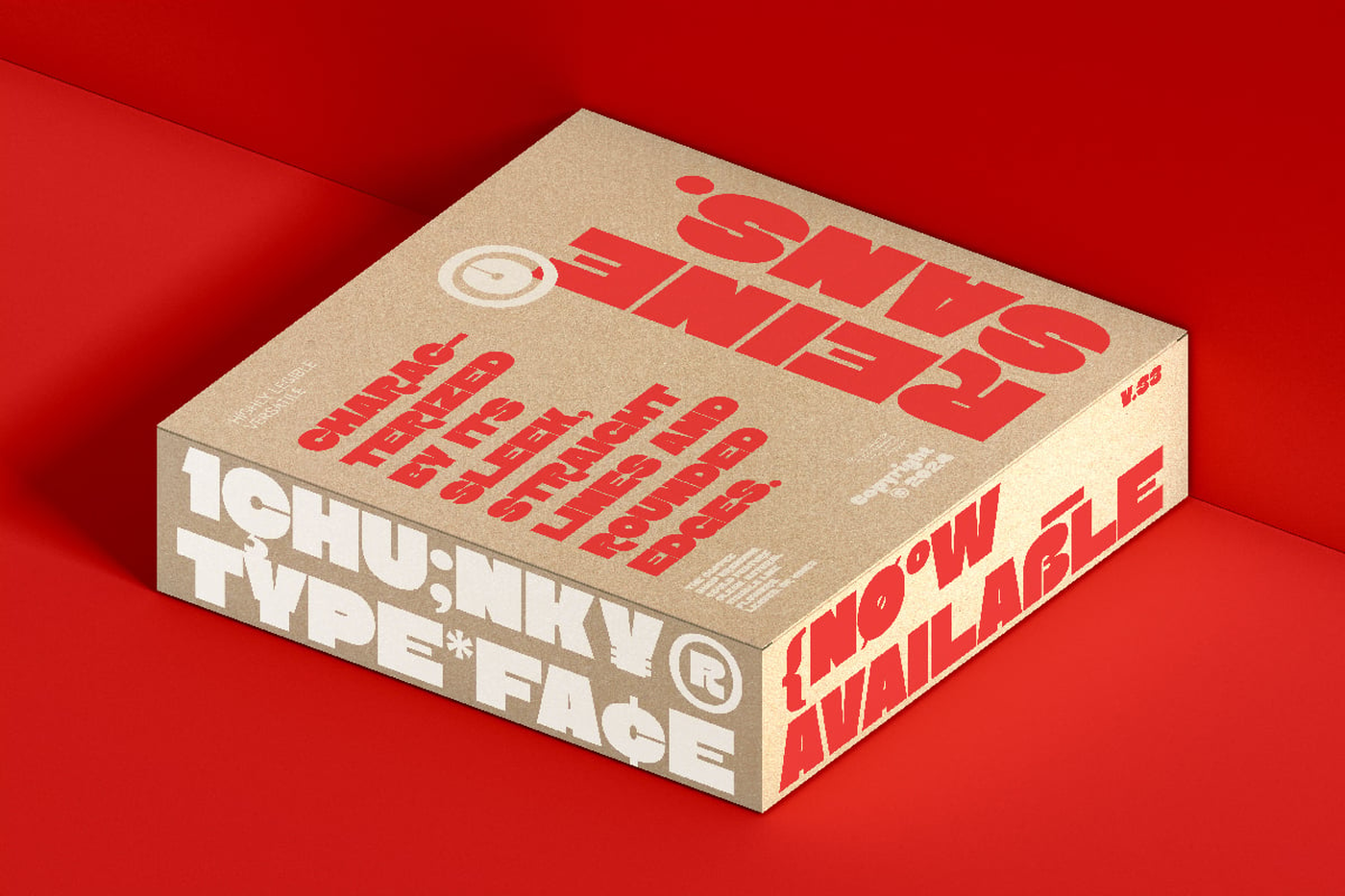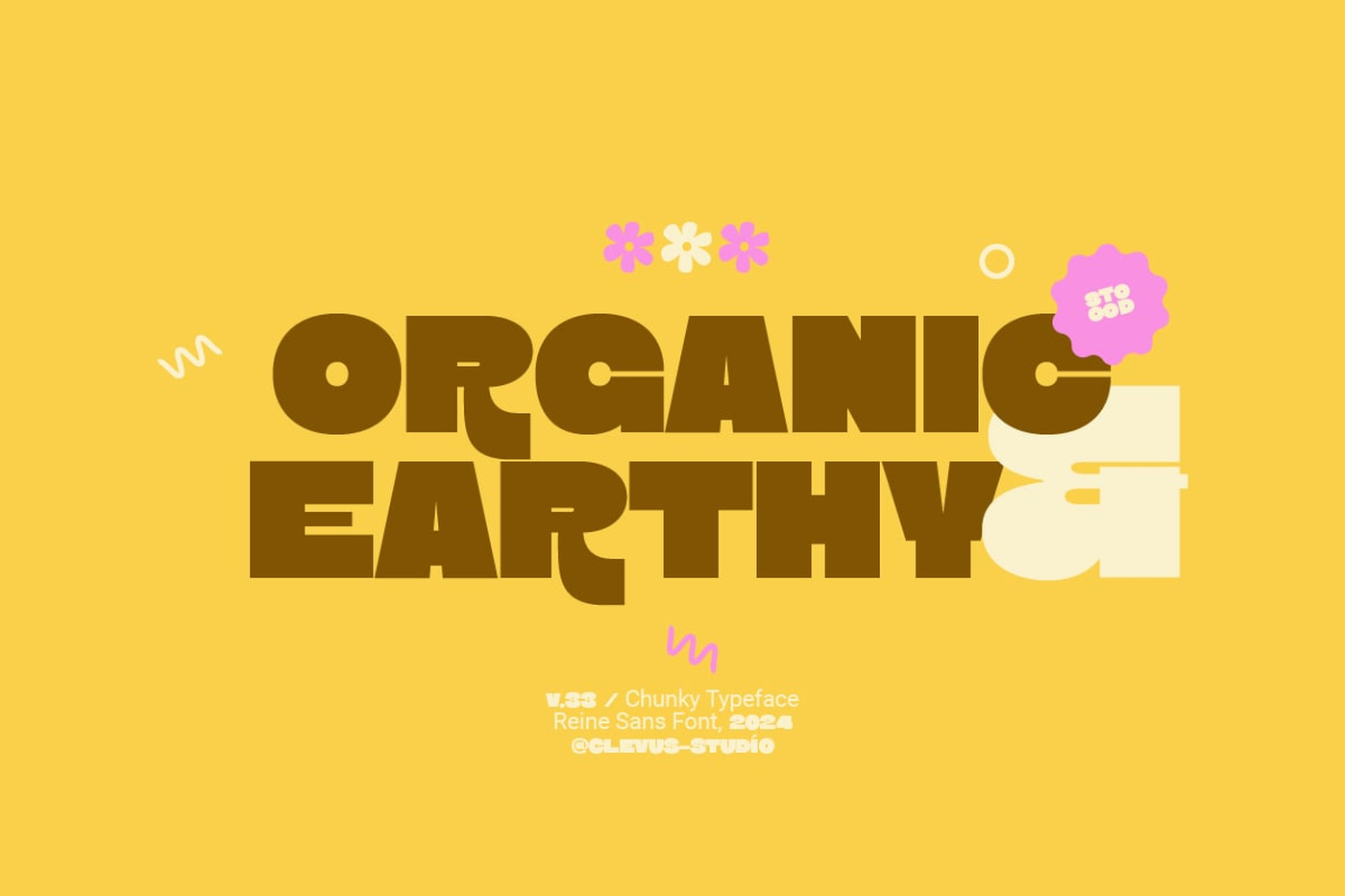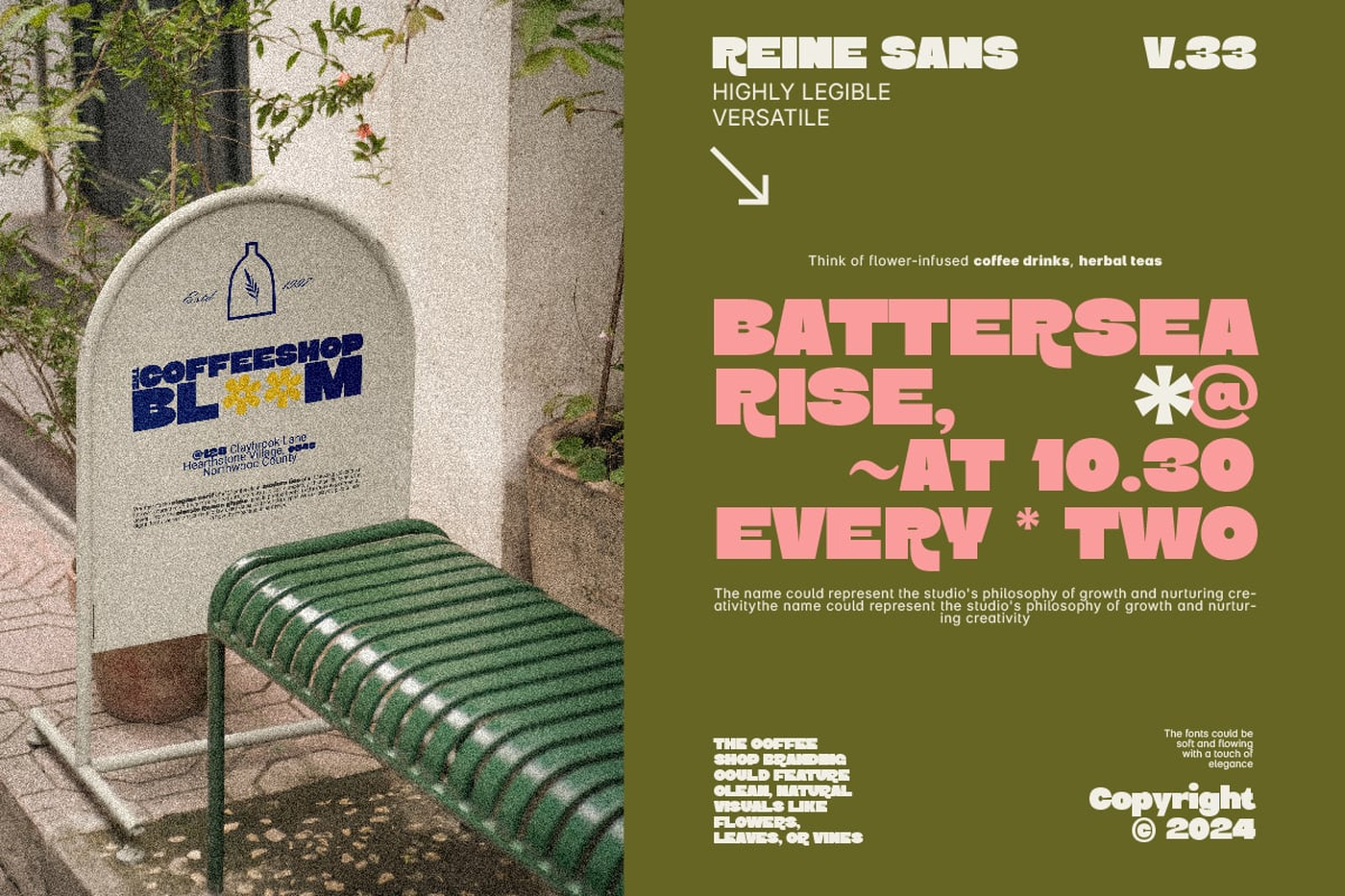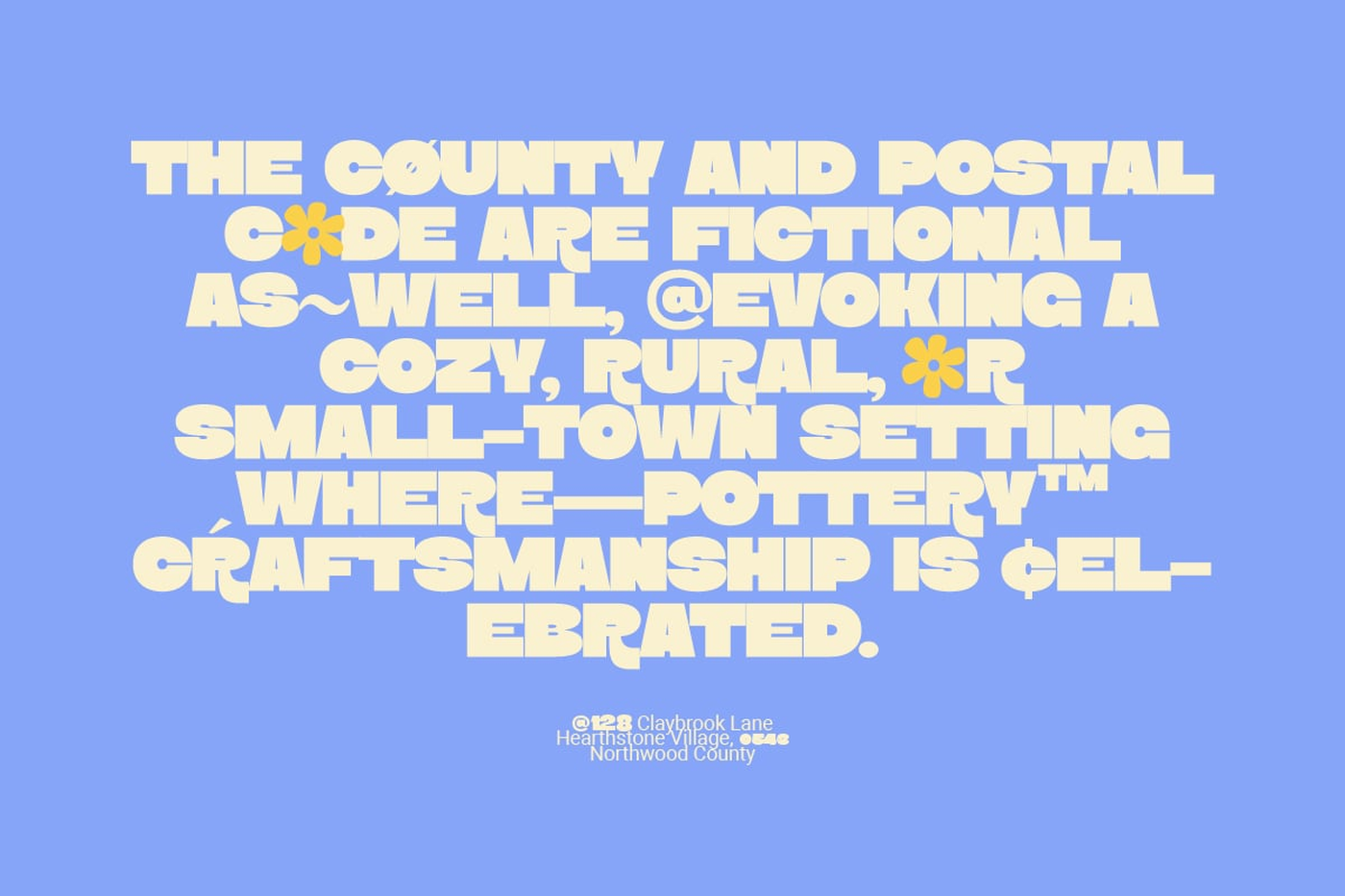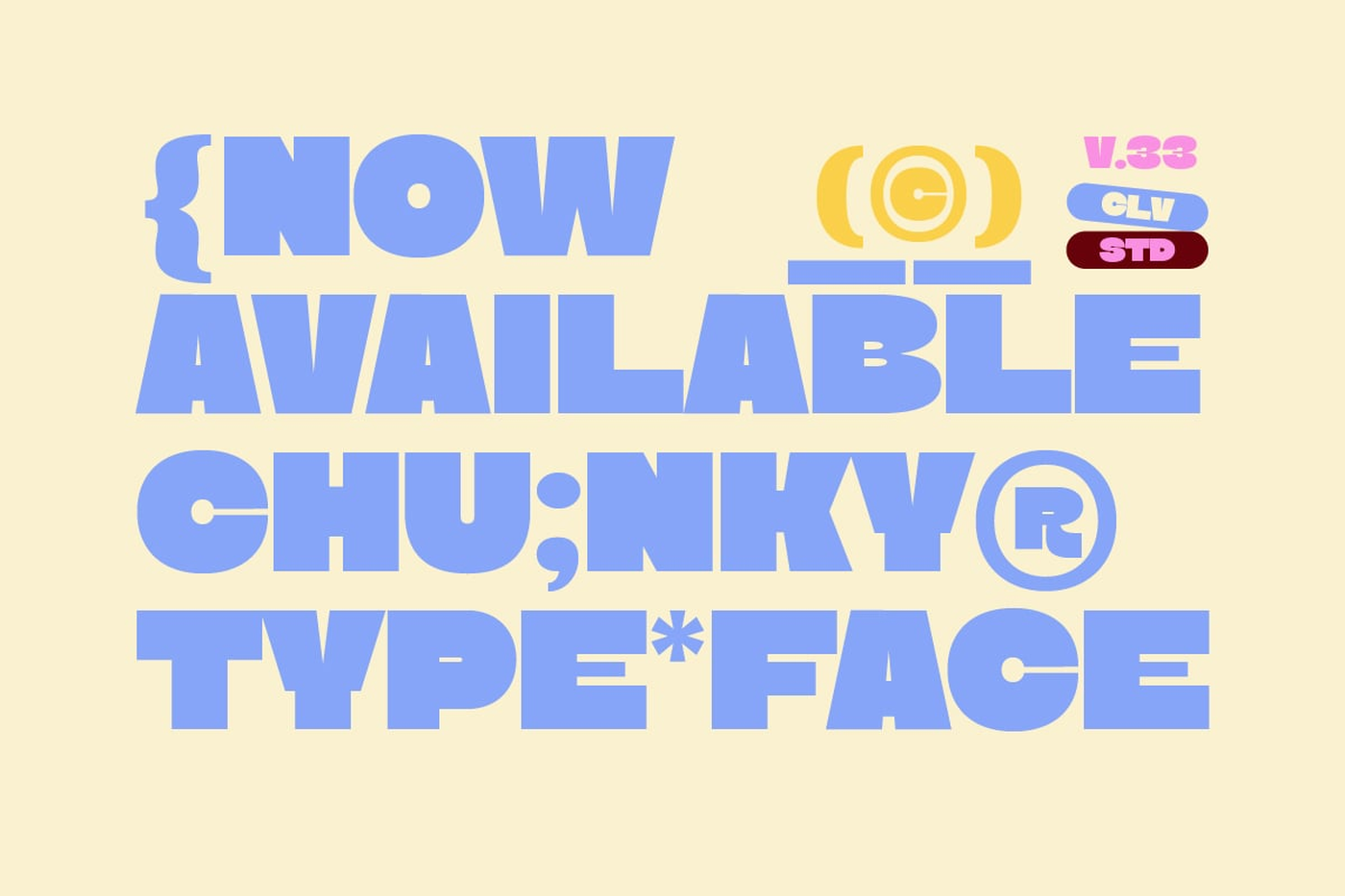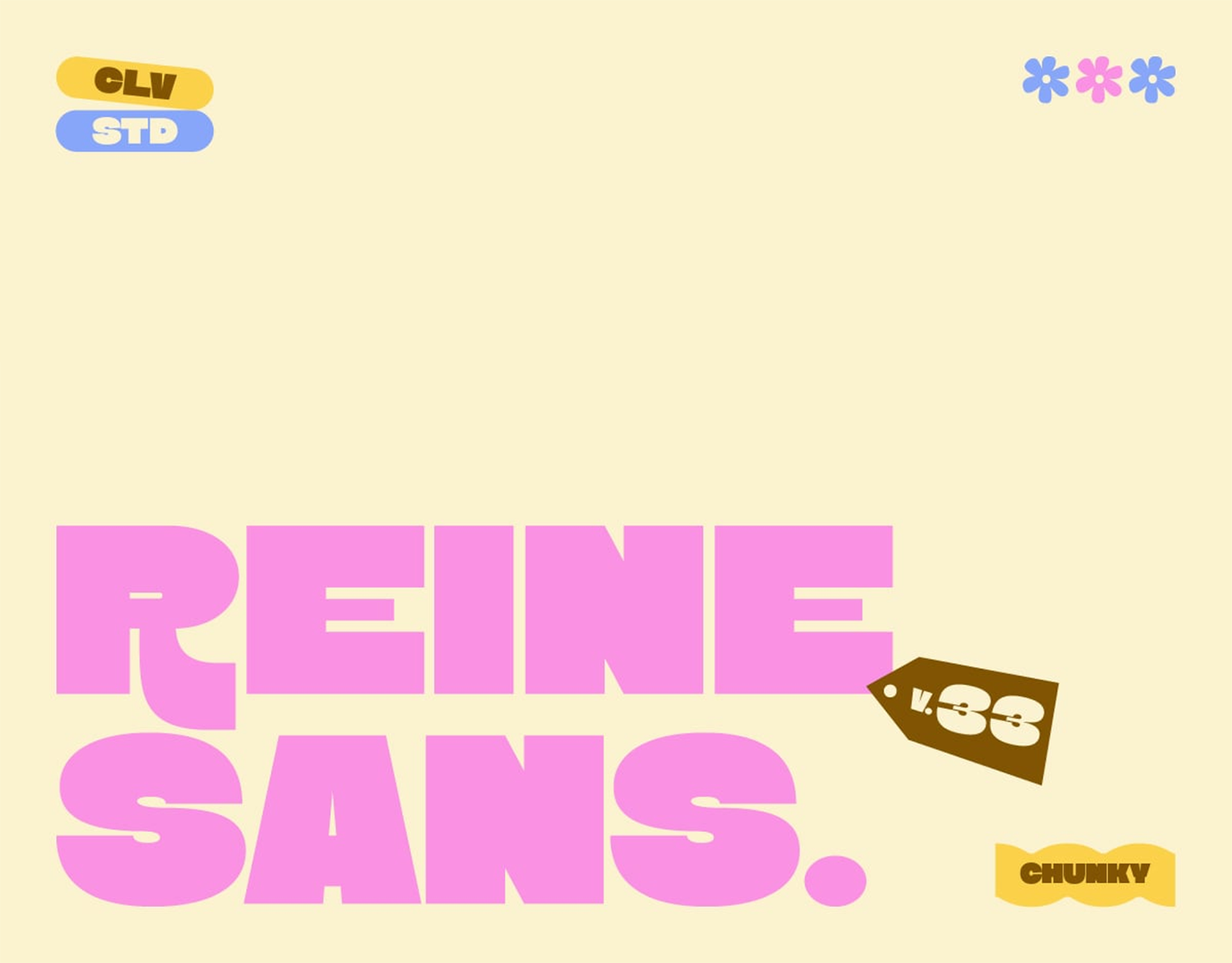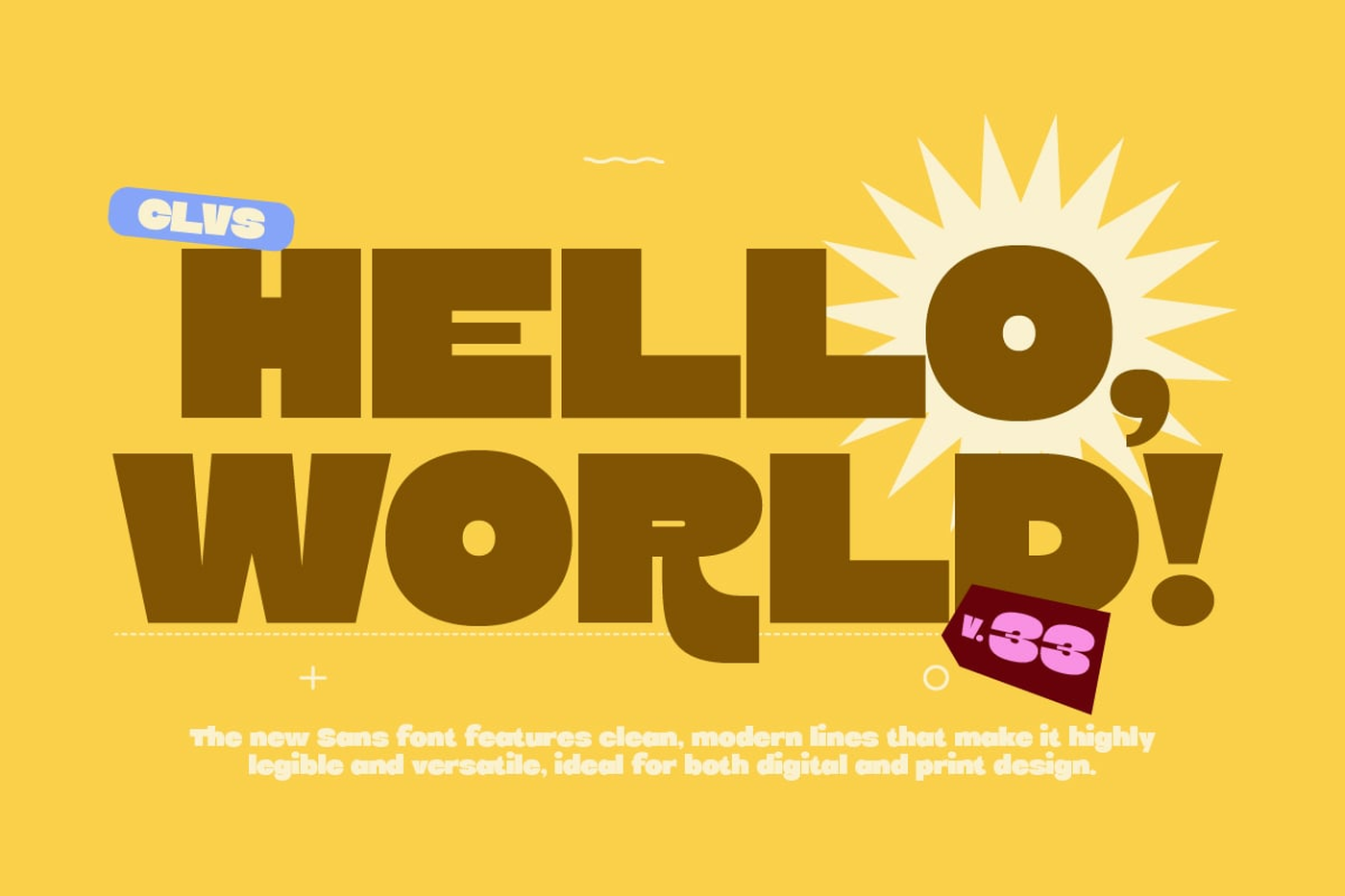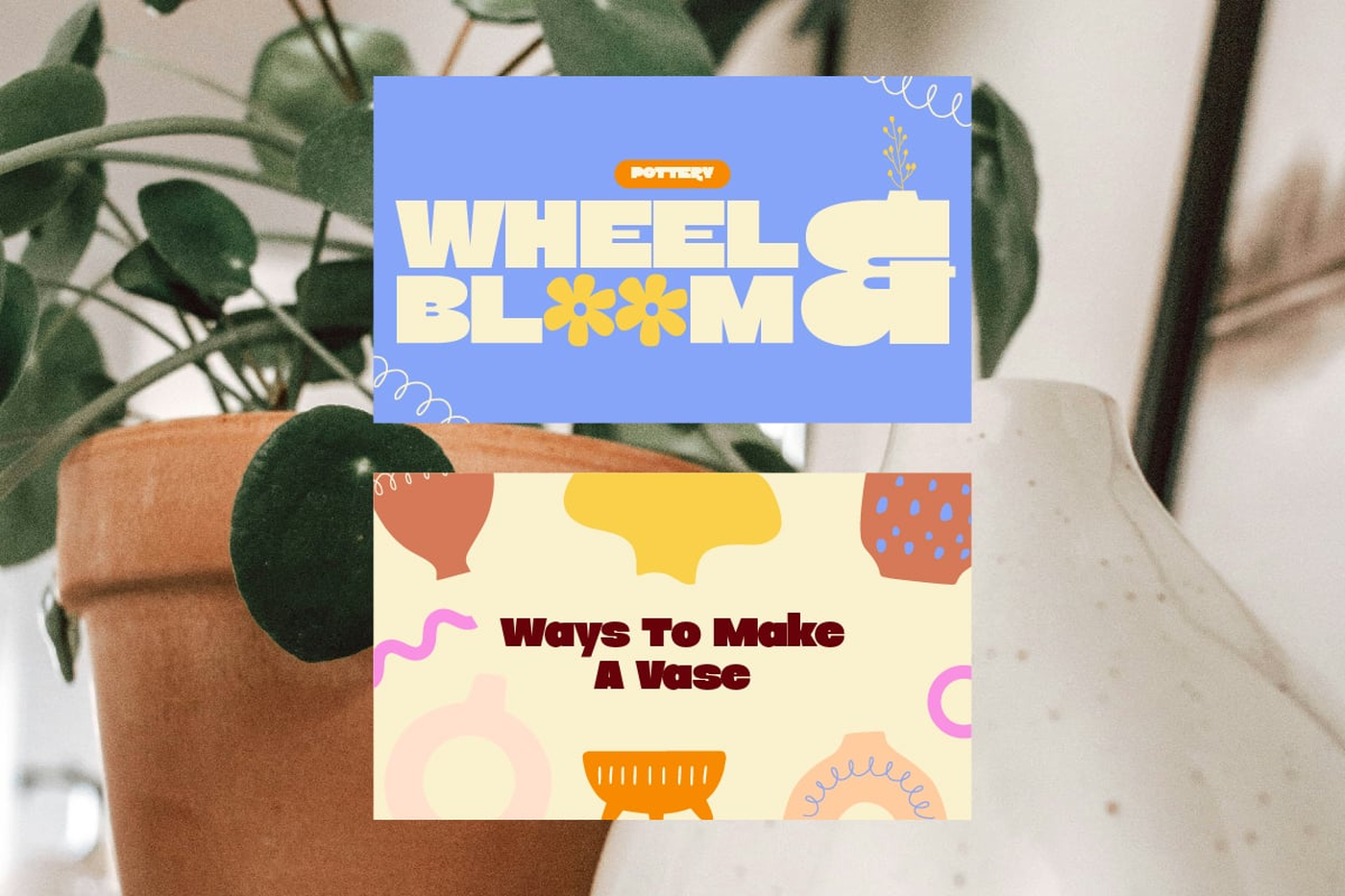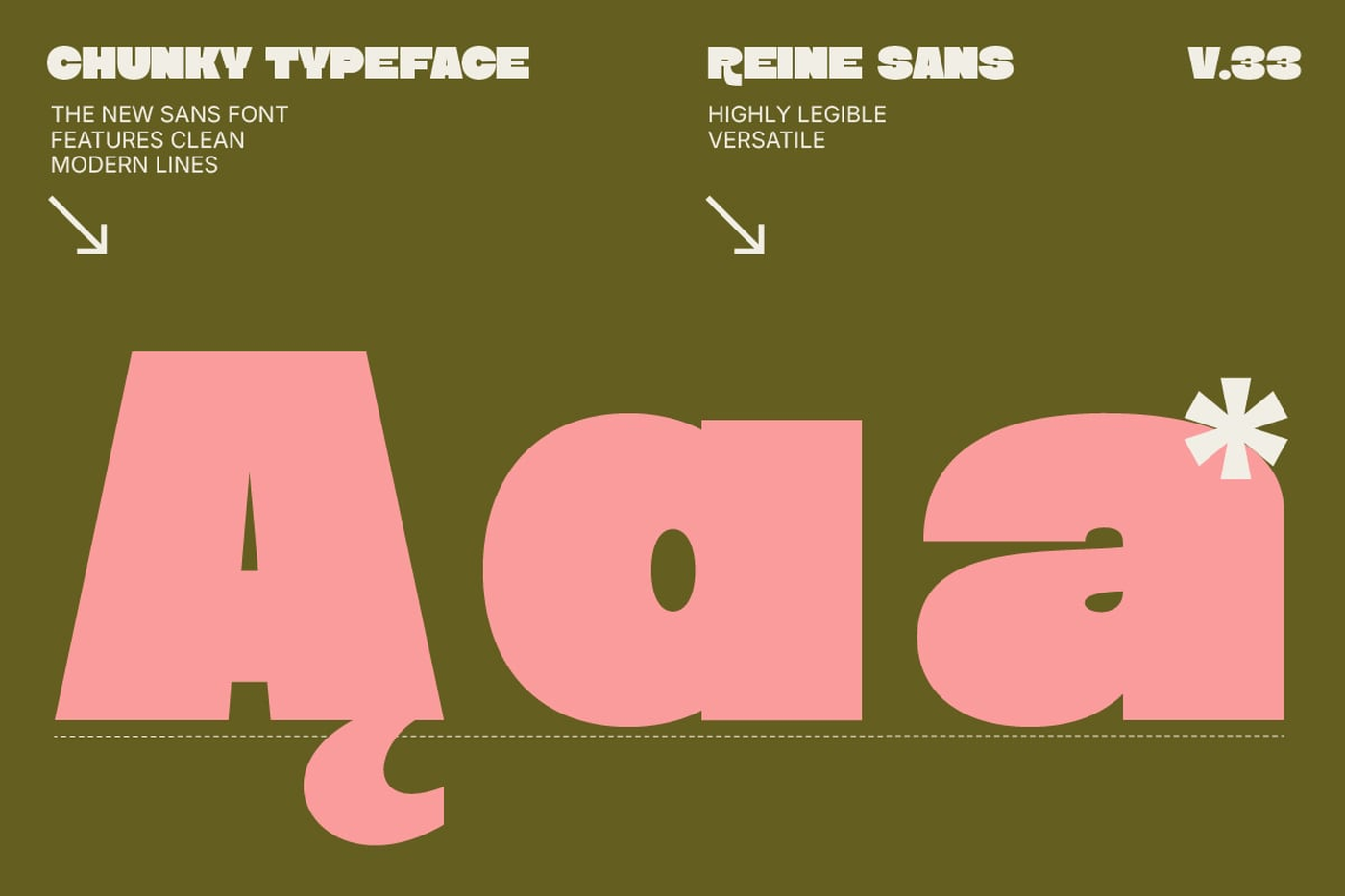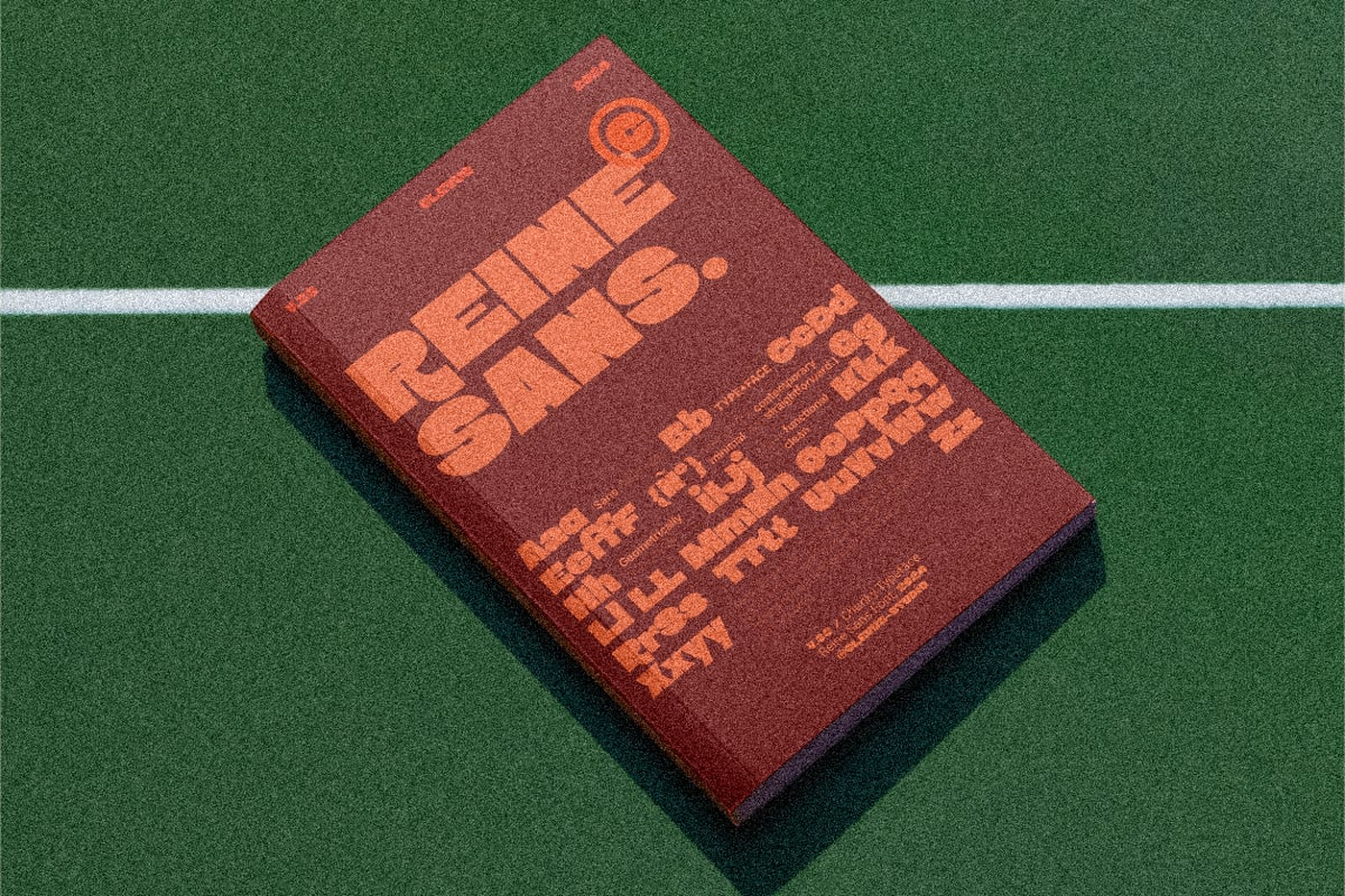
Reine Sans - Bold Chunky Font
A chunky, funky, loud, and cutely proud kinda font. Reine Sans is playful, and bold while not being shouty with its soft corner. It's the kinda font that looks like you wanna give it a big hug.
Font: Reine Sans